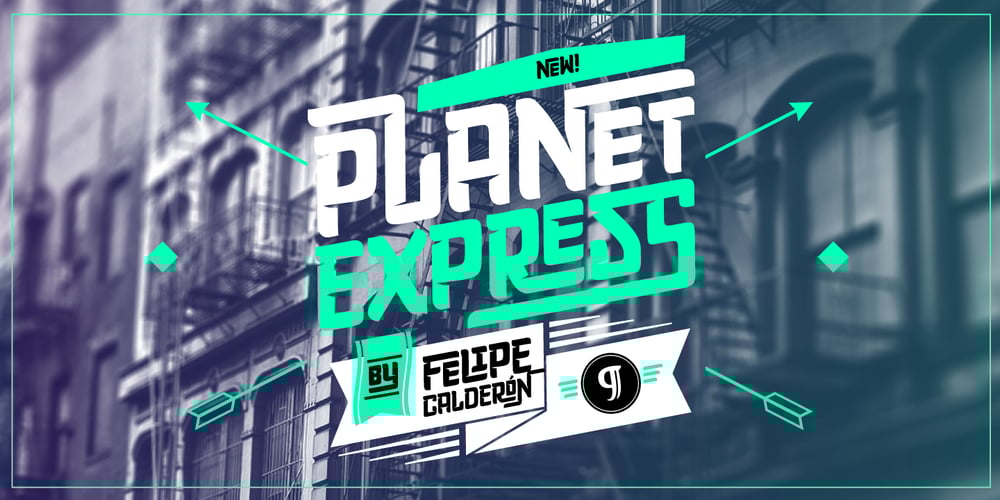
Planet Express Font Family was designed by Felipe Calderón and published by Estudio Calderon. Planet Express contains 3 styles and family package options. Family type designed by Felipe Calderón. This type is a display with a modern style and a different and innovative concept. The development of this type was a challenge because it was set out from the begining as a script font with ornaments and complements, where the round shapes do not have prominence in the result. Planet Express is an interesting job from the aesthetic point of view, it works for big scale texts and contains little shadow-cuts in each character to give it more personality and stand out among other fonts from this gender. I hope this new project works to solve issues in design. Planet Express is composed of Regular & Italics, it has 250 intelligent ligatures to produce the best signs in big scale, it is perfect for branding and works very well with the geometric complements. It is designed with programming in opentype: Ligatures, Discretionary ligatures, Stylistic Alternates, Stylistic set 01, Stylistic set 02, Stylistic set 03, Stylistic set 04, Stylistic set 05, Stylistic set 06, Stylistic set 07, Stylistic set 08 & Stylistic set 09, multiple language support and a complete set of extras like arrows, catchwords, flags, emblems, hands, fleurons & crossed elements. Planet Express can be used in different ways, each character pretends to cover the needs in any circumstance where it is used. It is funny to write words and play with the complements. It also works with current concepts in graphic design like sports, cars, hip hop, music, social network, skateboarding and more. Everybody can use this font, it works with different languages like italian, french, portuguese, danish, german and so forth. See specimen and samples here. Enjoy it!